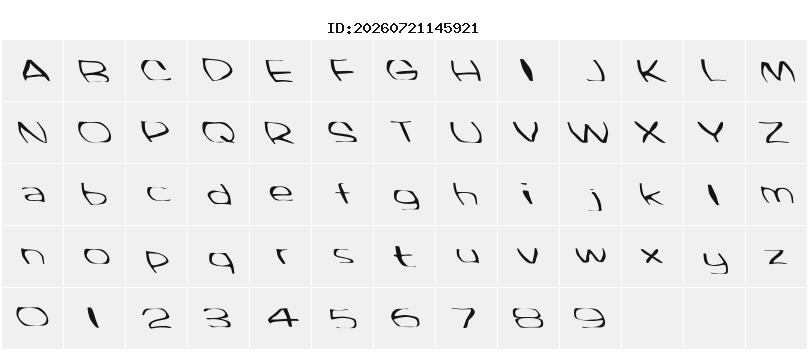
About FZ WARPED 33 LEFTY.ttf
FZ WARPED 33 LEFTY.ttf is a modern, elegant sans-serif font designed for ultimate readability and visual harmony. Perfect for branding, headlines, web design, and print materials.